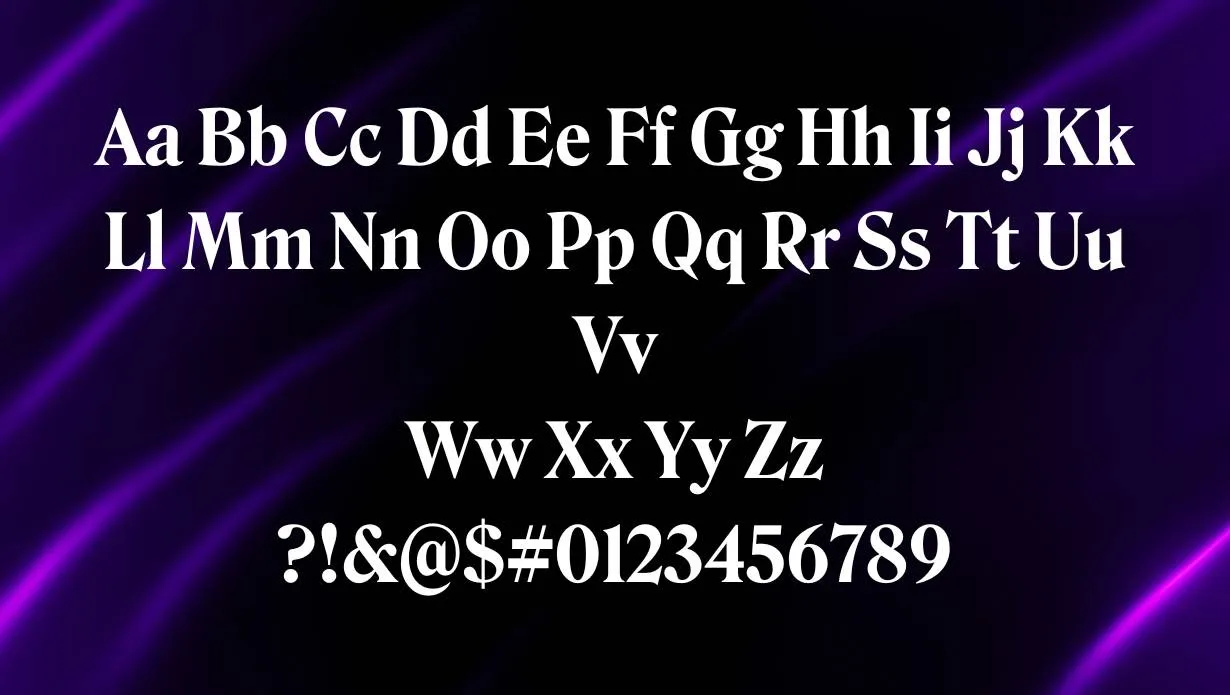
The Roslindale Font is like a friendly neighbor, bringing a warm and welcoming aura to your designs. Its smooth characters create an inviting atmosphere, making it an ideal choice for creating friendly graphics in Adobe Photoshop, adding a neighborly touch to web design with CSS, or making your documents feel like a friendly chat in MS Word.
| Name | Roslindale Font |
| Designer | David Jonathan Ross |